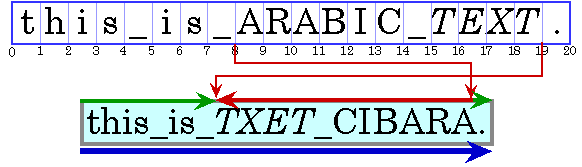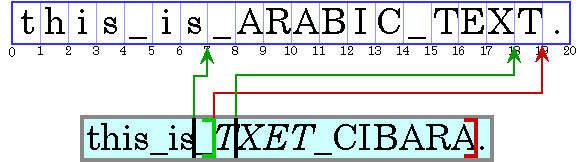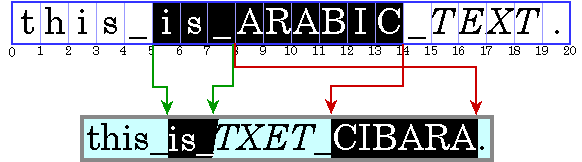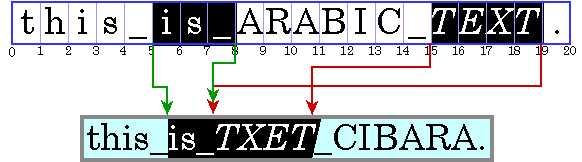
You can use the Java 2D™ API transformation and drawing mechanisms with text strings. In addition, the Java 2D API provides text-related classes that support fine-grain font control and sophisticated text layout. These include an enhanced Font class and the new TextLayout class.
The following tables list the key font and text layout interfaces and classes. Most of these interfaces and classes are part of the java.awt.font package. Some, like Font, are part of the java.awt package to maintain backward compatibility with earlier versions of the JDK.
The Font class has been enhanced to support the specification of detailed font information and enable the use of sophisticated typographic features.
A Font object represents an instance of a font face from the collection of font faces available on the system. Examples of common font faces include Helvetica Bold and Courier Bold Italic.
Three names are associated with a Font—its logical name, family name, and font face name:
Font object’s logical name is a name mapped onto one of the specific fonts available on the platform. The logical font name is the name used to specify a Font in JDK 1.1 and earlier releases. When specifying a Font in Java™ 2 SDK, you should use the font face name instead of the logical name.You can get the logical name from the Font by calling getName. To get a list of the logical names that are mapped onto the specific fonts available on a platform, call java.awt.Toolkit.getFontList. Font object’s family name is the name of the font family that determines the typographic design across several faces, such as Helvetica. You retrieve the family name through the getFamily method. Font objects’ font face name refers to an actual font installed on the system. This is the name you should use when specifying a font in Java 2 SDK. It’s often referred to as just the font name. You can retrieve the font name by calling getFontName. To determine which font faces are available on the system, you can call GraphicsEnvironment.getAllFonts.
You can access information about a Font through the getAttributes method. A Font’s attributes include its name, size, transform, and font features such as weight and posture.
A LineMetrics object encapsulates the measurement information associated with a Font, such as its ascent, descent, and leading:
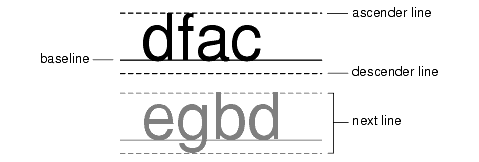
This information is used to properly position characters along a line, and to position lines relative to one another. You can access these line metrics through the getAscent, getDescent, and getLeading methods. You can also access information about a Font’s height, baseline, and underline and strikethrough characteristics through LineMetrics.
Before a piece of text can be displayed, it must be properly shaped and positioned using the appropriate glyphs and ligatures. This process is referred to as text layout. The text layout process involves:
The information used to lay out text is also necessary for performing text operations such as caret positioning, hit detection, and highlighting.
To develop software that can be deployed in international markets, text must be laid out in different languages in a way that conforms to the rules of the appropriate writing system.
A glyph is the visual representation of one or more characters. The shape, size, and position of a glyph is dependent on its context. Many different glyphs can be used to represent a single character or combination of characters, depending on the font and style.
For example, in handwritten cursive text, a particular character can take on different shapes depending on how it is connected to adjacent characters.
In some writing systems, particularly Arabic, the context of a glyph must always be taken into account. Unlike in English, cursive forms are mandatory in Arabic; it is unacceptable to present text without using cursive forms.
Depending on the context, these cursive forms can differ radically in shape. For example, the Arabic letter heh has the four cursive forms shown in Figure 4-2.
Although these four forms are quite different from one another, such cursive shape-changing is not fundamentally different from cursive writing in English.
In some contexts, two glyphs can change shape even more radically and merge to form a single glyph. This type of merged glyph is called a ligature. For example, most English fonts contain the ligature fi shown in Figure 4-3. The merged glyph takes into account the overhang on the letter f and combines the characters in a natural-looking way, instead of simply letting the letters collide.